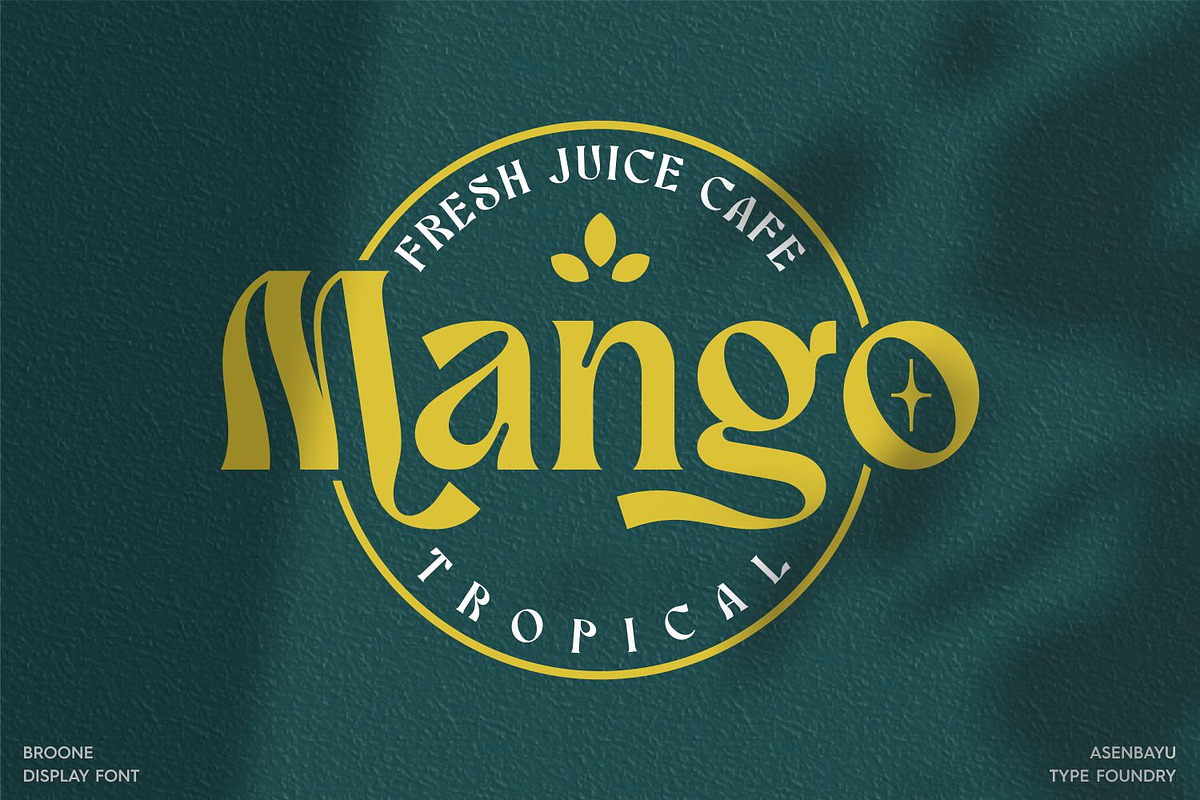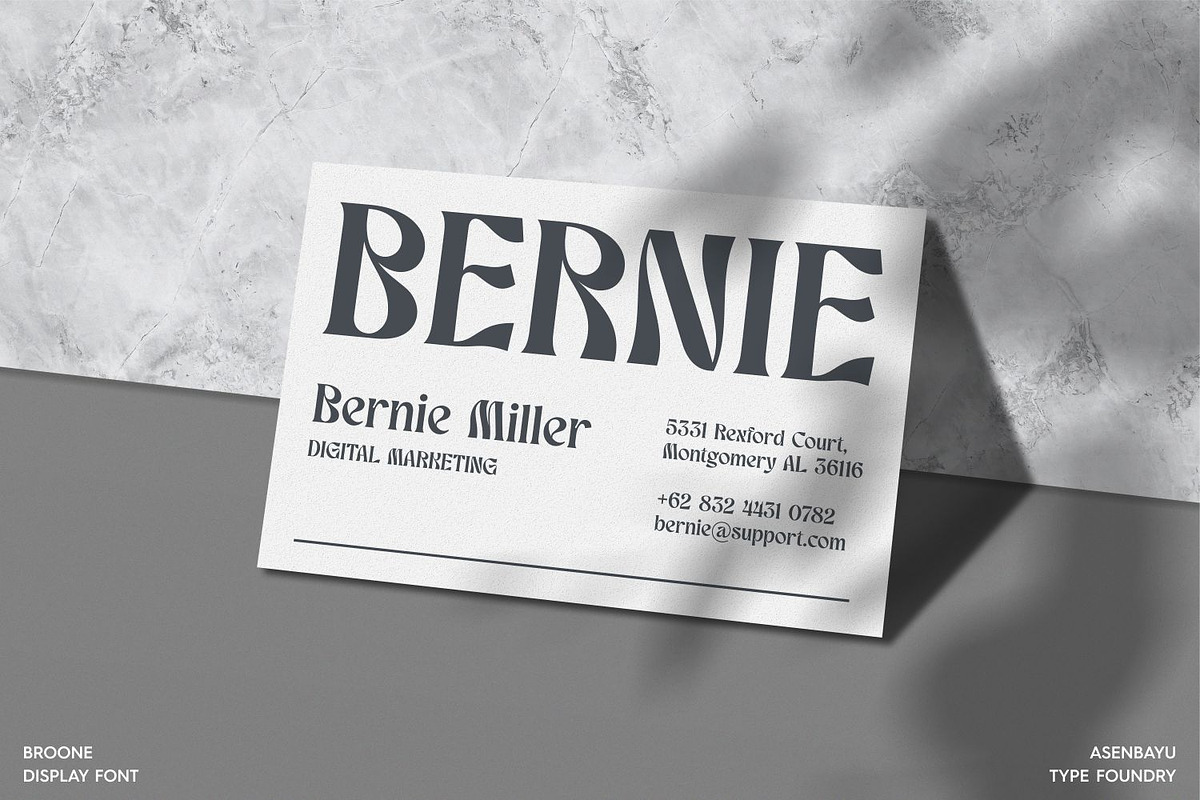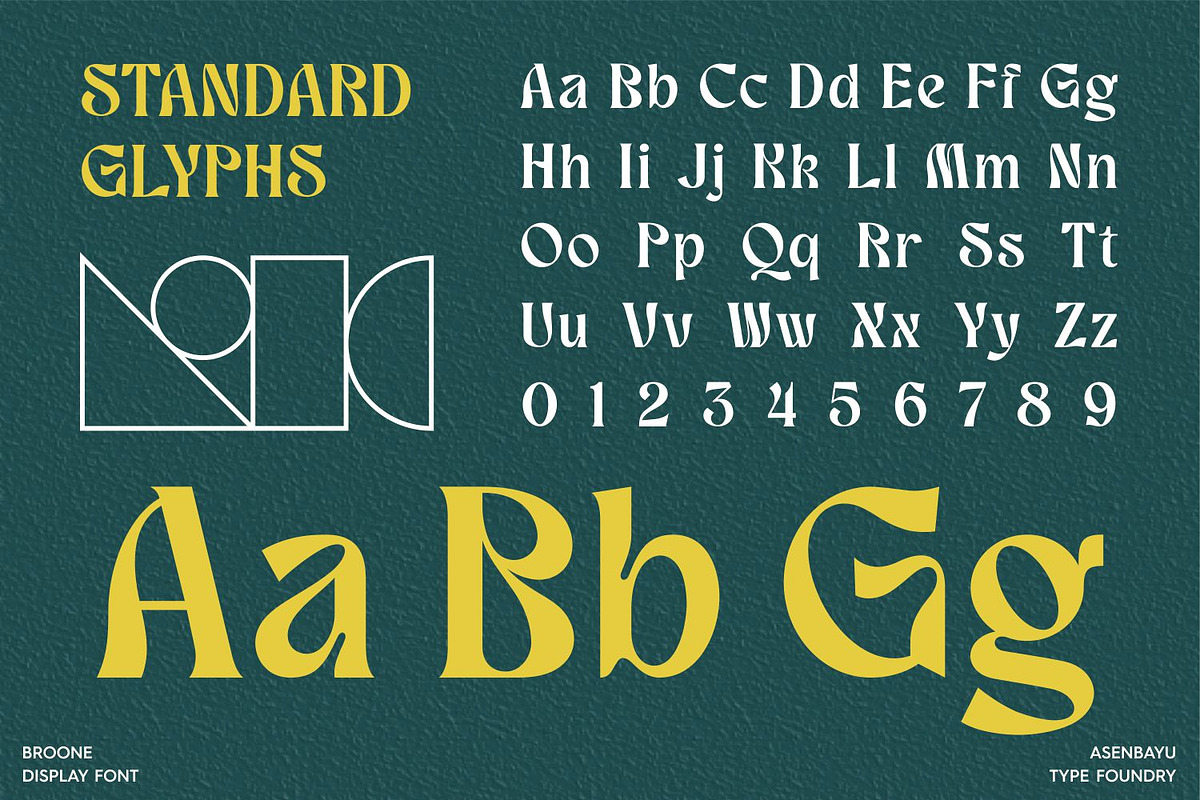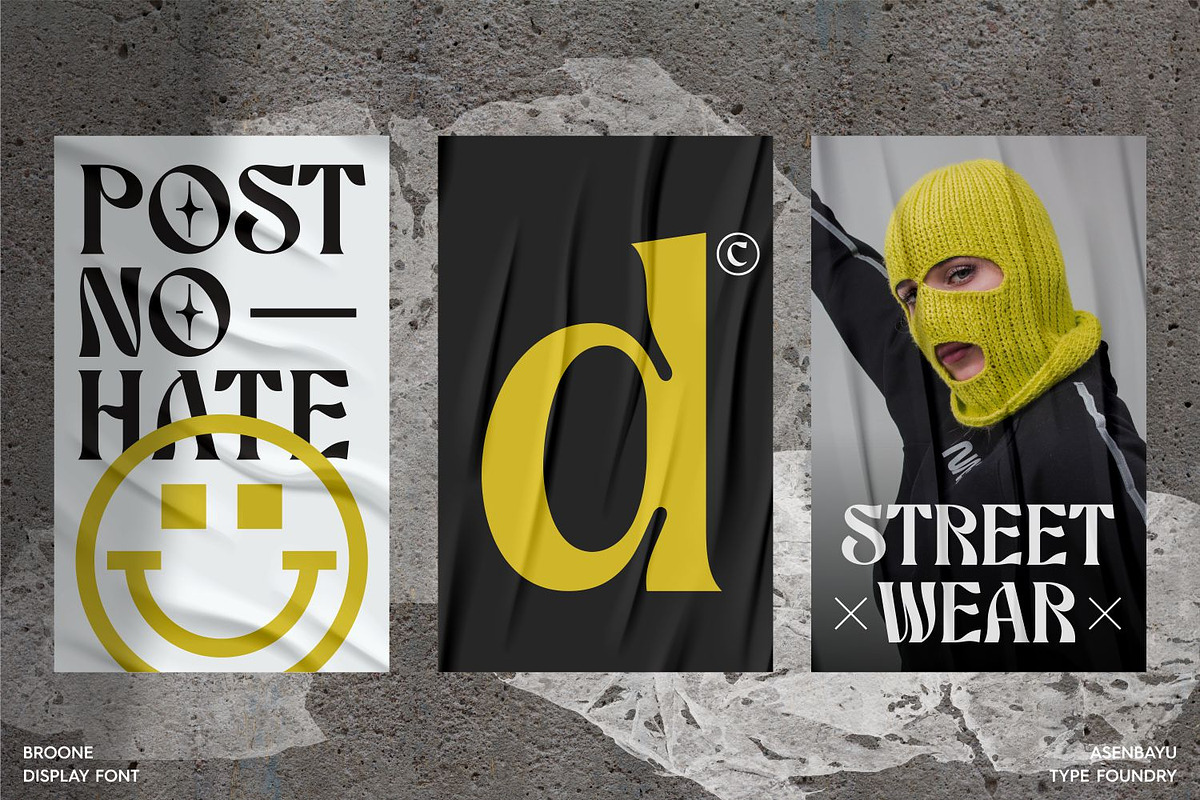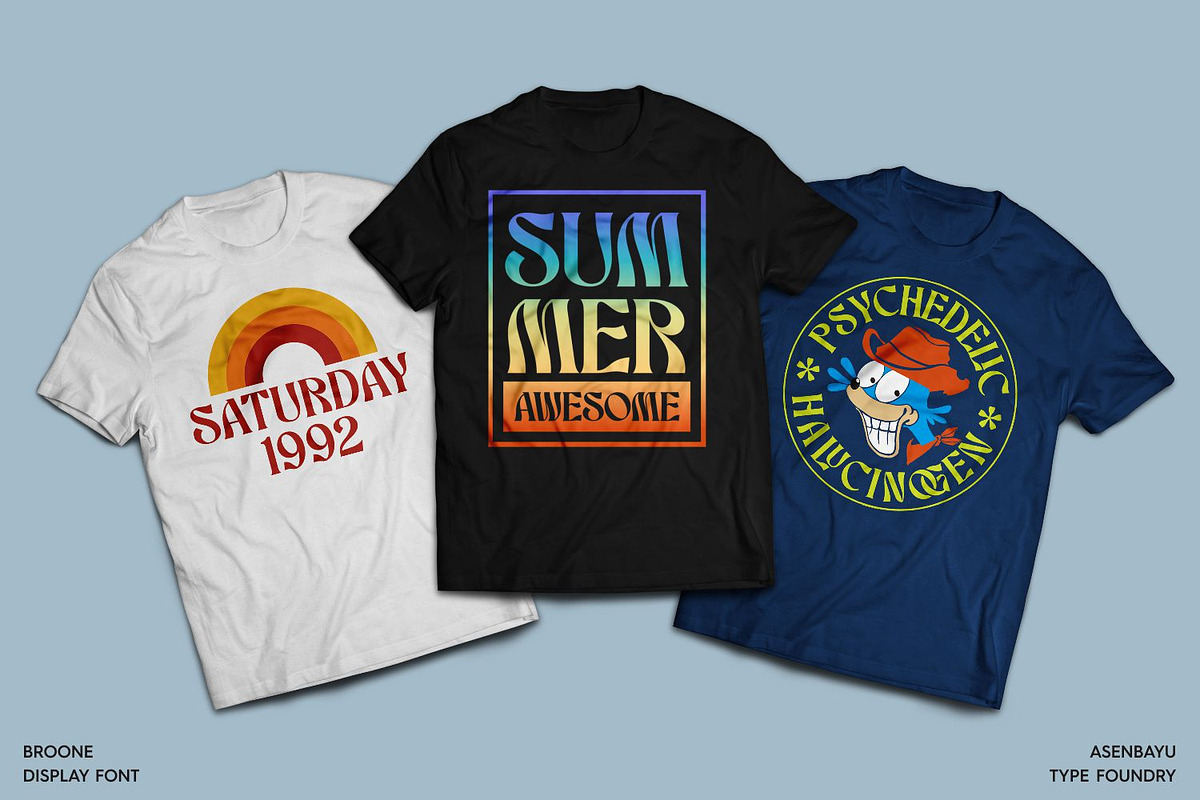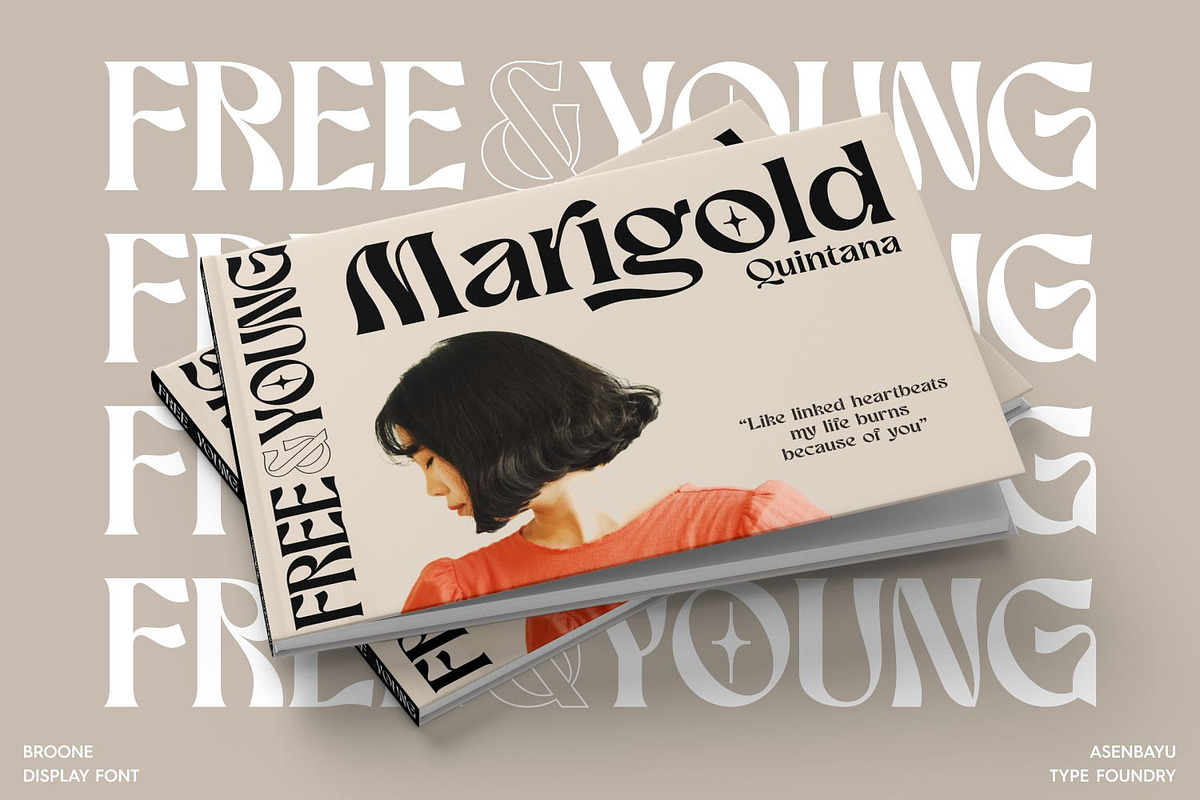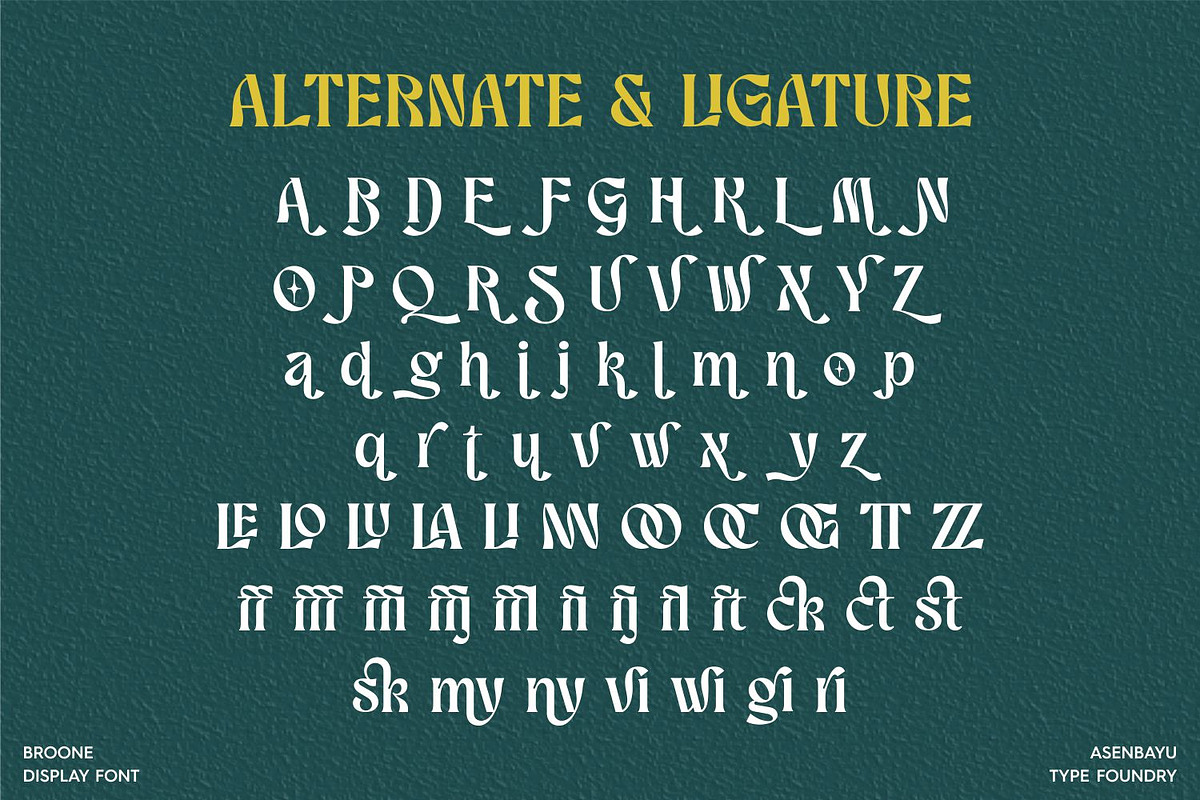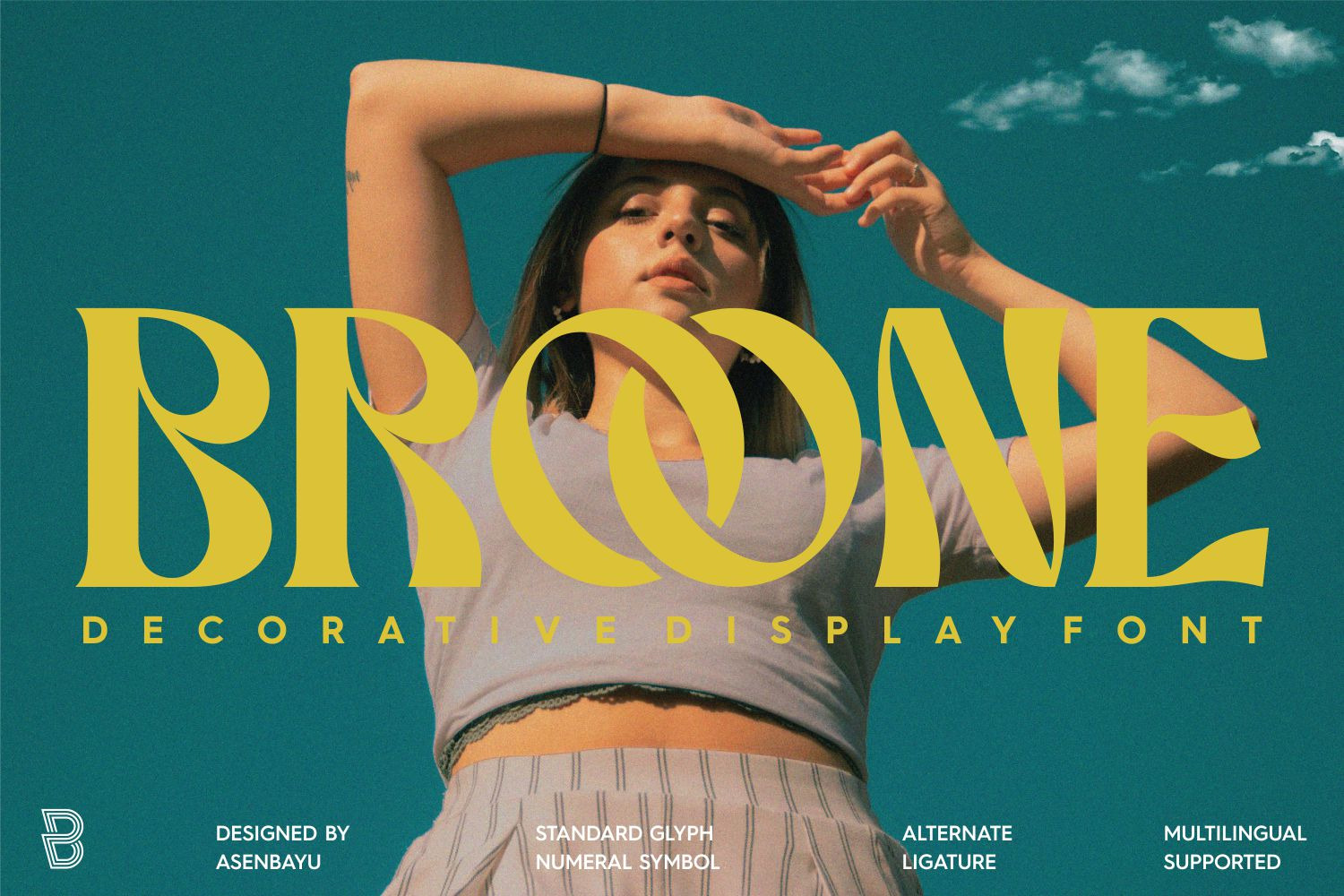
Broone is a stunning versatile decorative display font. The proportion of wavy shapes with serif outlines can add a youthful and natural touch to any design project. You can use this font in modern and retro designs. This font is suitable for attractive packaging label designs, unique desired logos, poster designs, fashion and much more. This font contains standard glyphs, alternates, ligatures, symbol, punctuation and multilingual supports.